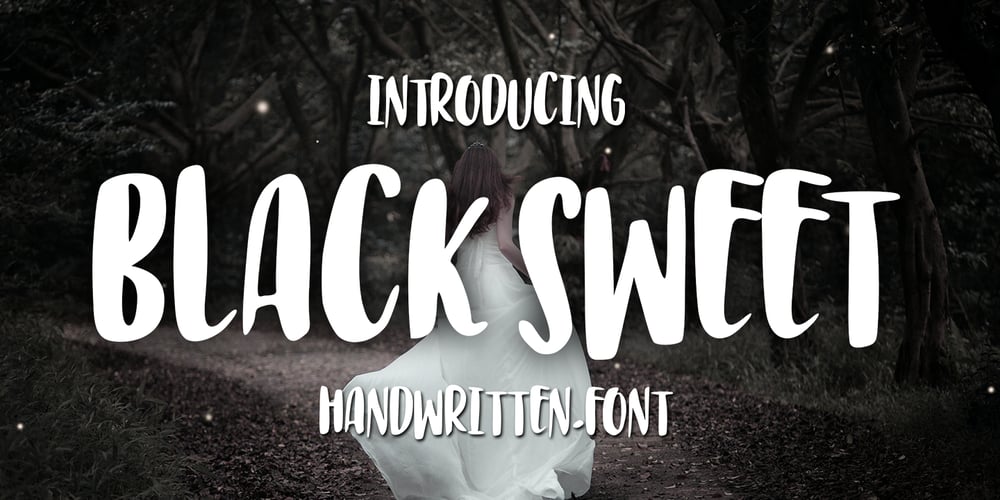
Black Sweet Font Family was designed by Zaki Muhammad and published by madjack.font. Black Sweet contains 1 styles and family package options. Black Sweet is a rocking handwritten script font!This font is perfect for quotes, shirt designs, websites, branding, children’s designs, blogs, logos, invitations, and more!Most of the accented characters are included.Thank you!